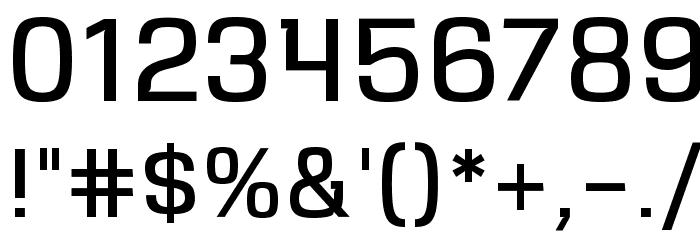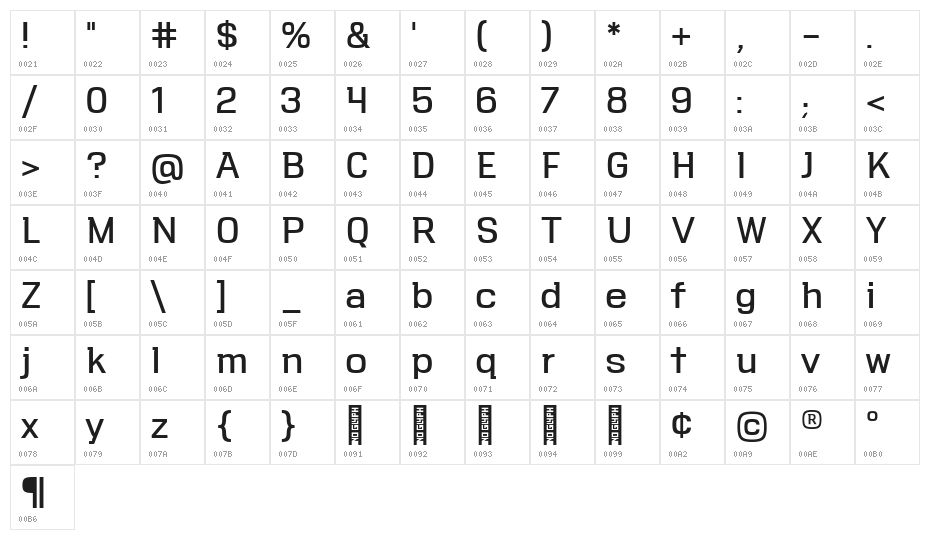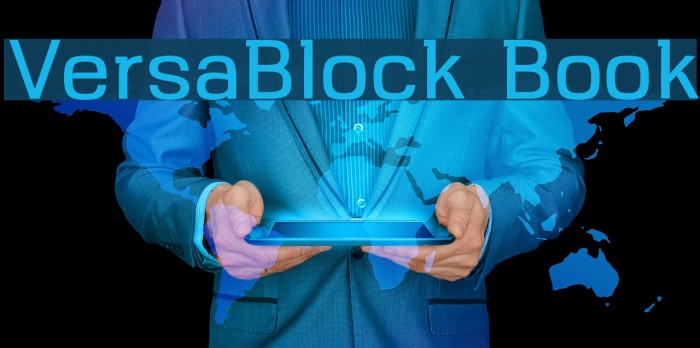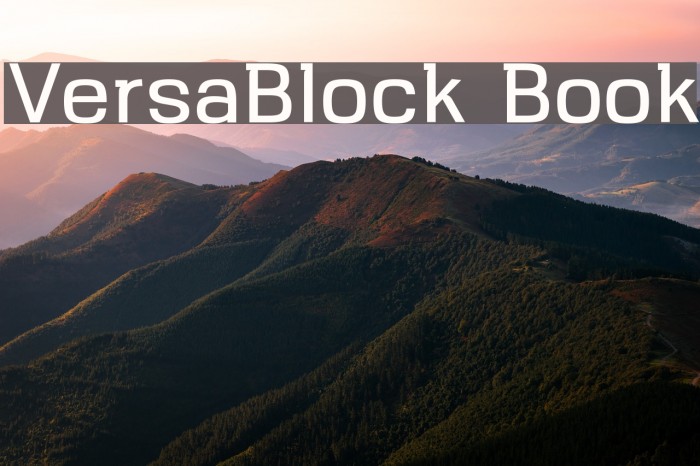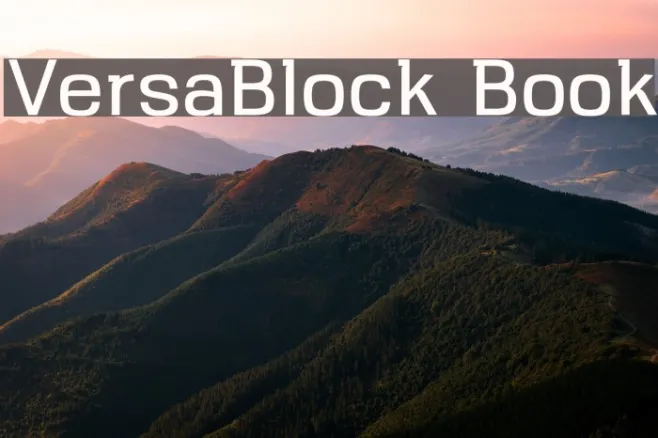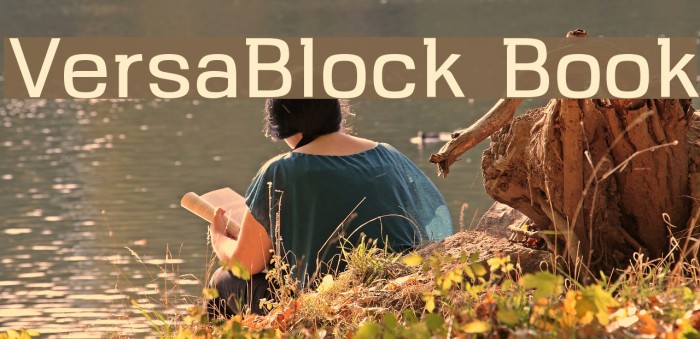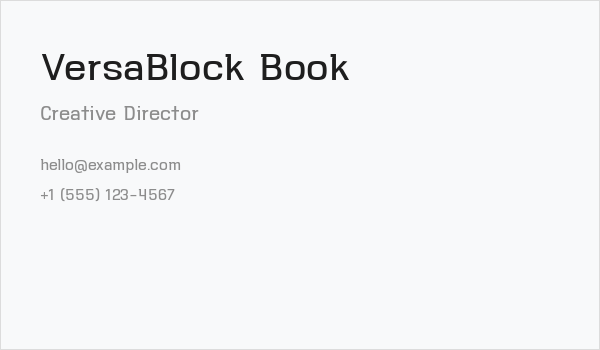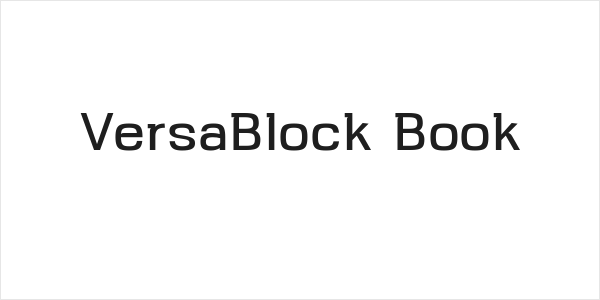
VersaBlock Book Font
VersaBlock Book Description
This typeface presents a clean and modern aesthetic with a geometric structure. The characters are well-defined with consistent stroke widths, giving it a balanced and uniform appearance. The uppercase letters are bold and assertive, while the lowercase letters maintain a harmonious flow. The numerals are clear and easy to read, making them suitable for various applications. Special characters are designed with precision, ensuring they complement the overall style. This font's simplicity and clarity make it versatile for both digital and print media.
| Proposed Projects | Ideal for branding, web design, editorial layouts, and signage due to its clarity and modern style. |